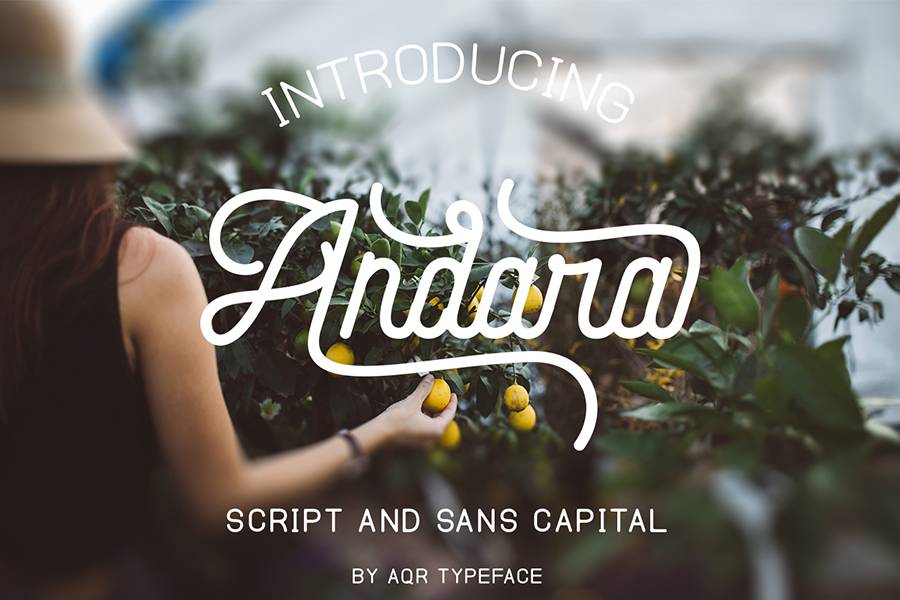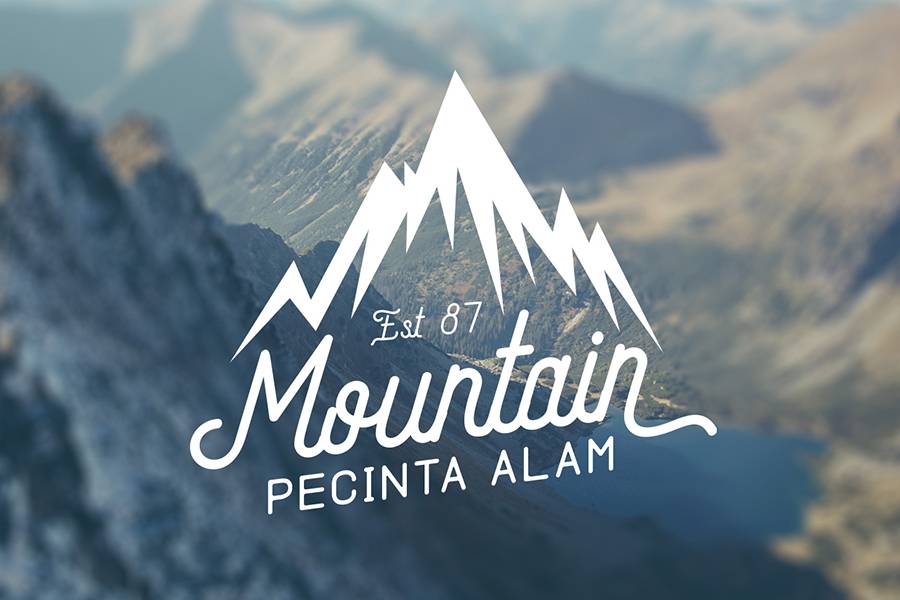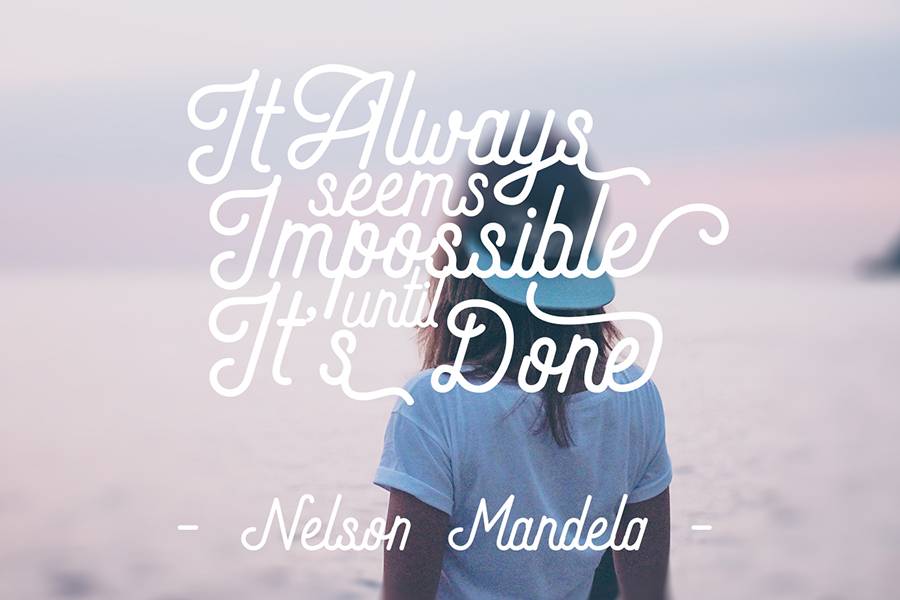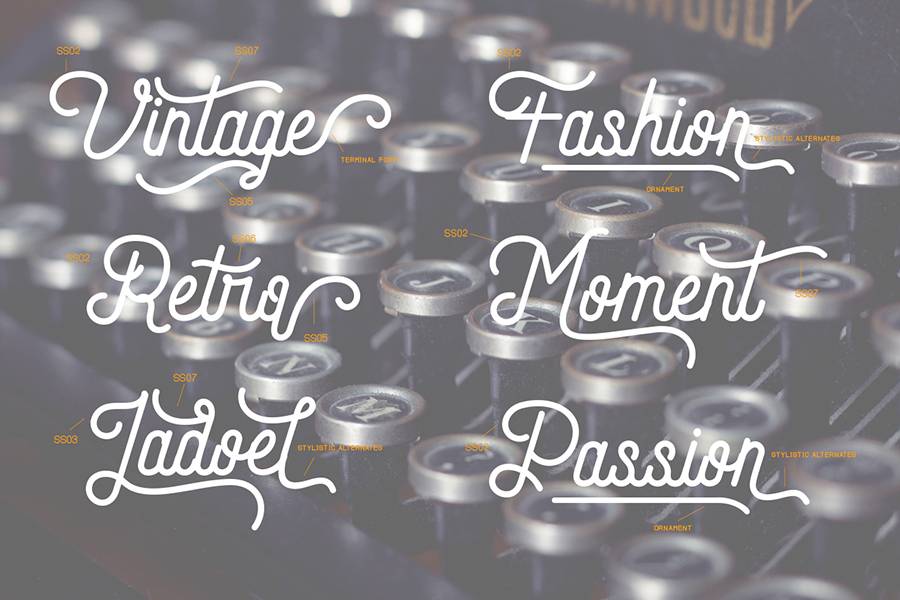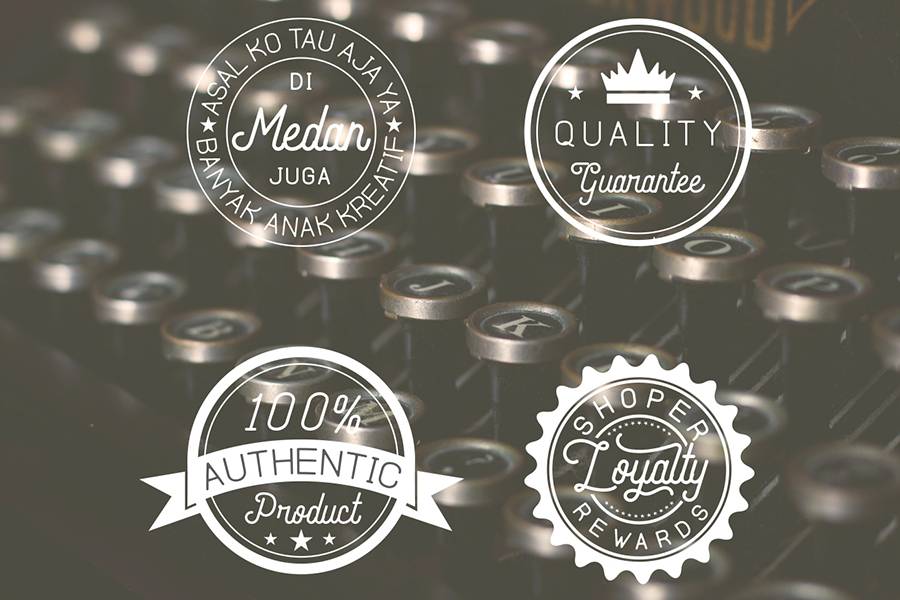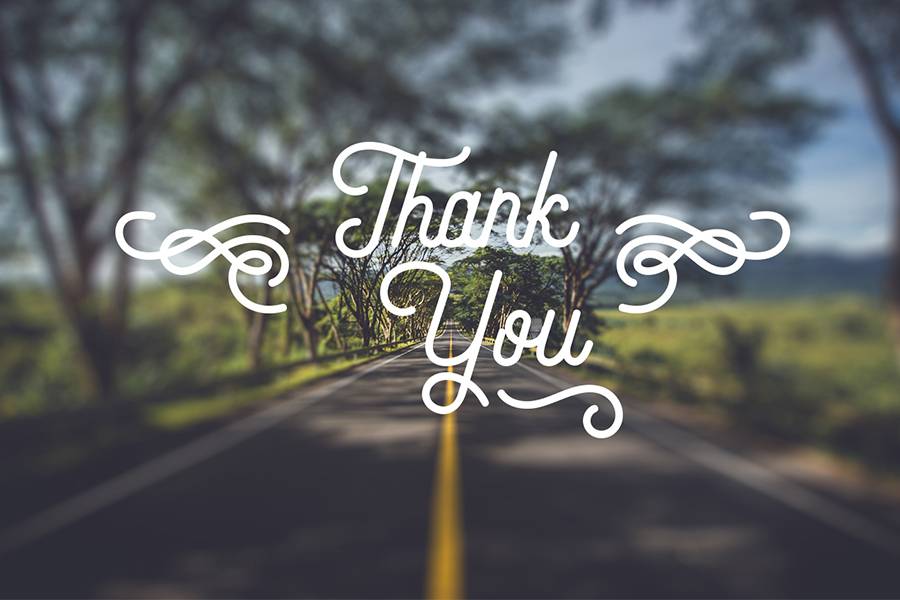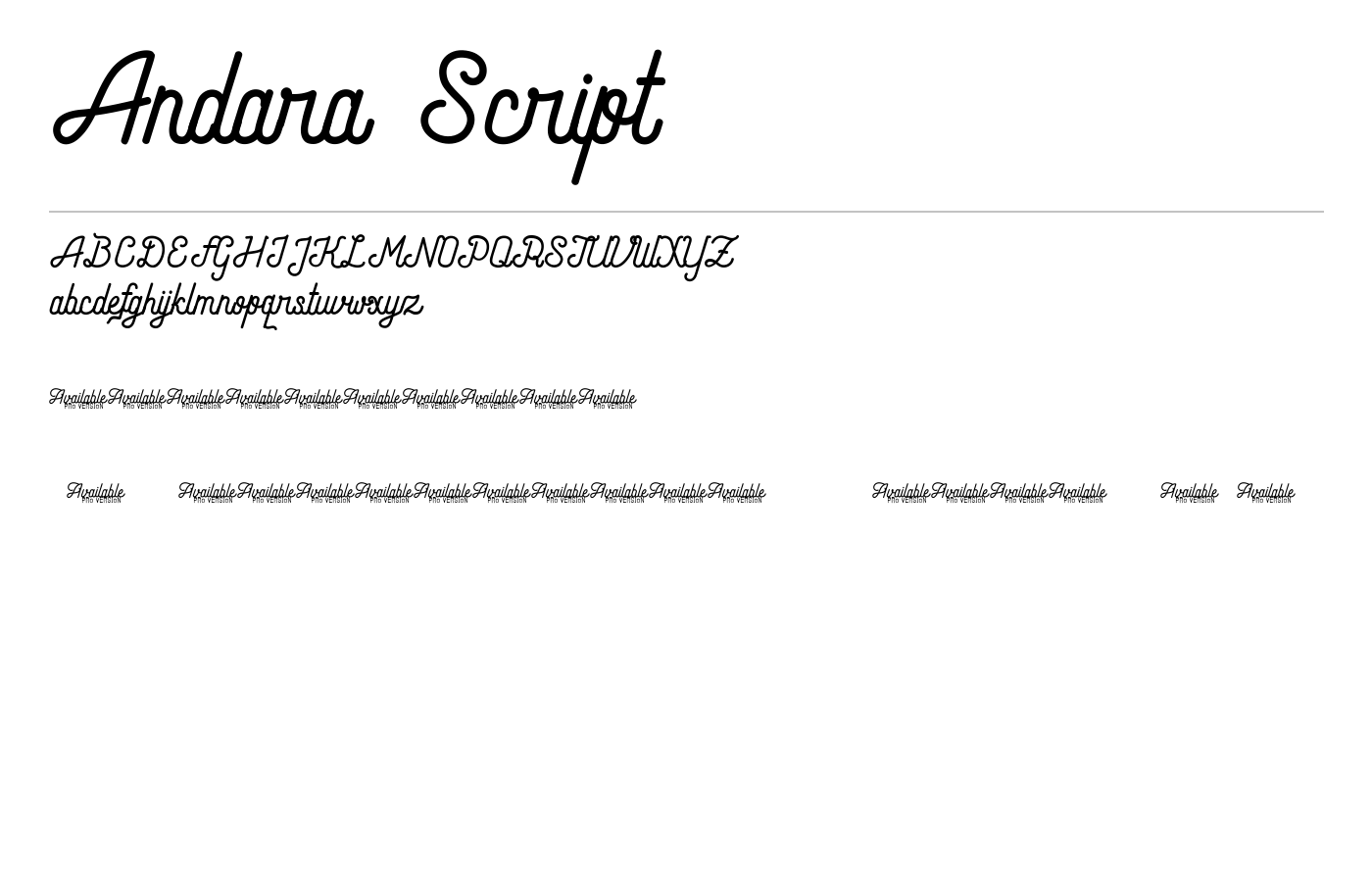
Andara Script Demo is a graceful and elegant script font with a smooth, flowing style that mimics natural handwriting in a refined way. Its slender, medium-weight strokes and moderately tall x-height create a legible yet stylish appearance, making it perfect for invitations, branding, and editorial designs that seek a touch of sophistication and personality. This font’s classic script charm works well for projects aiming to convey warmth, creativity, and a handcrafted feel.
Andara Script Demo Font
About Andara Script Demo Font